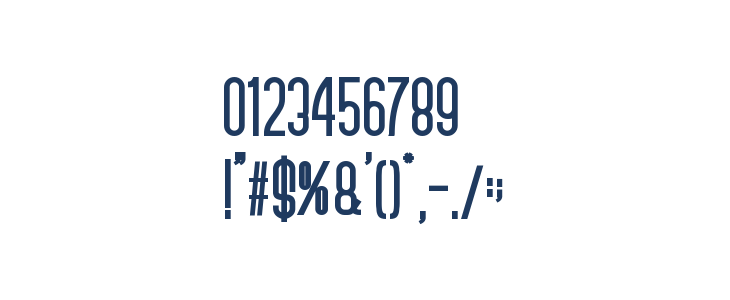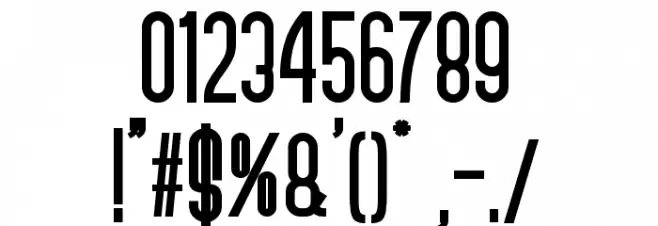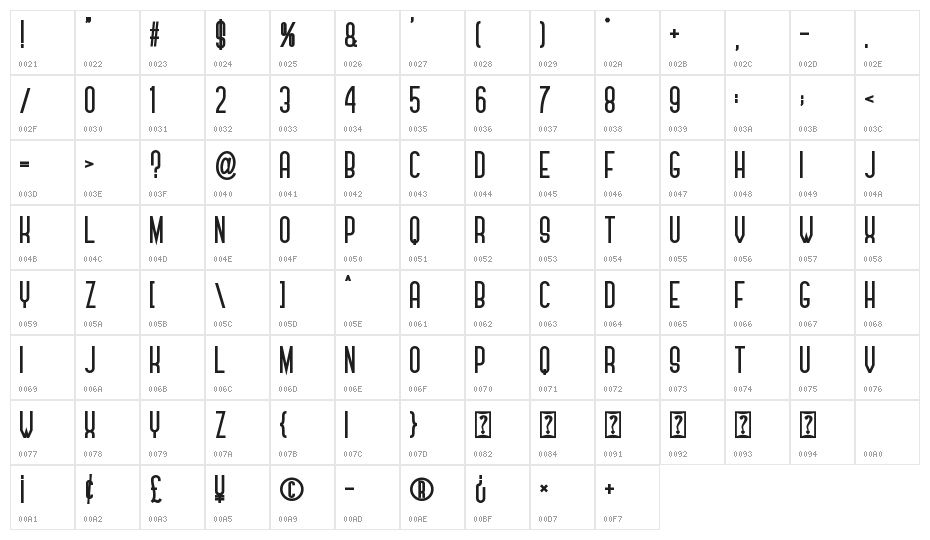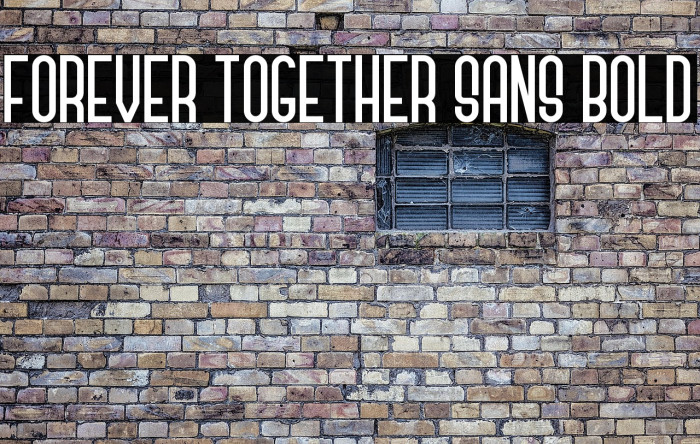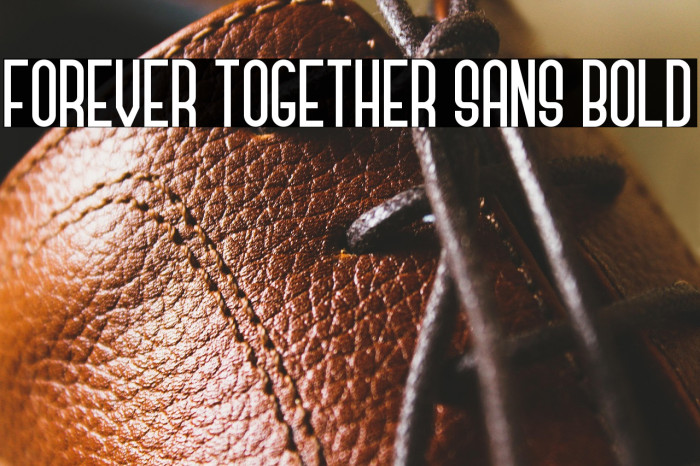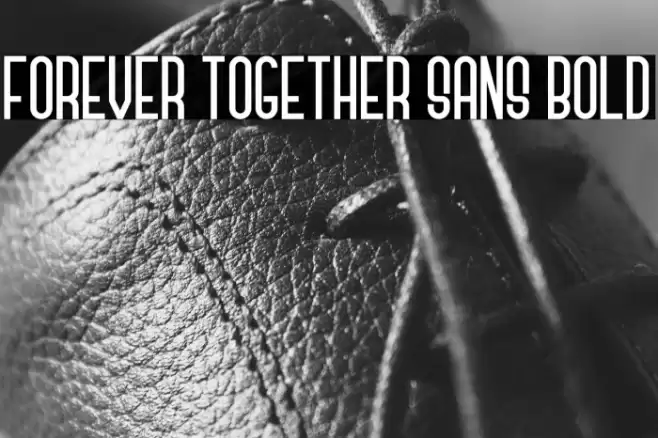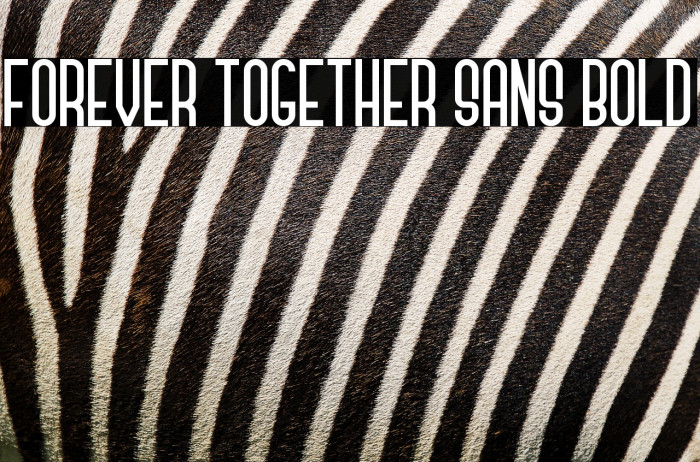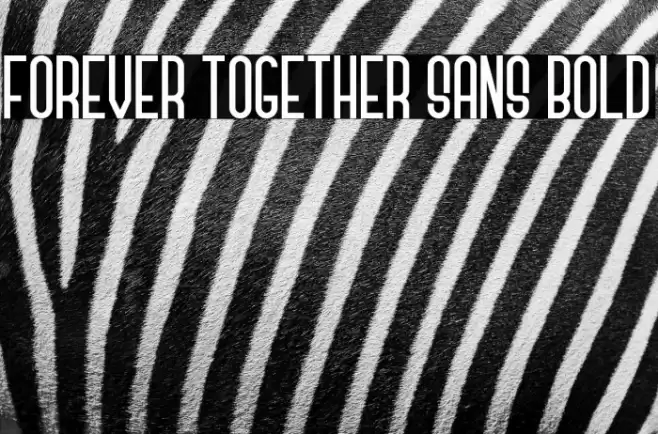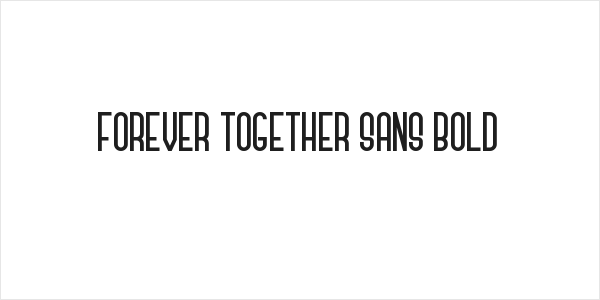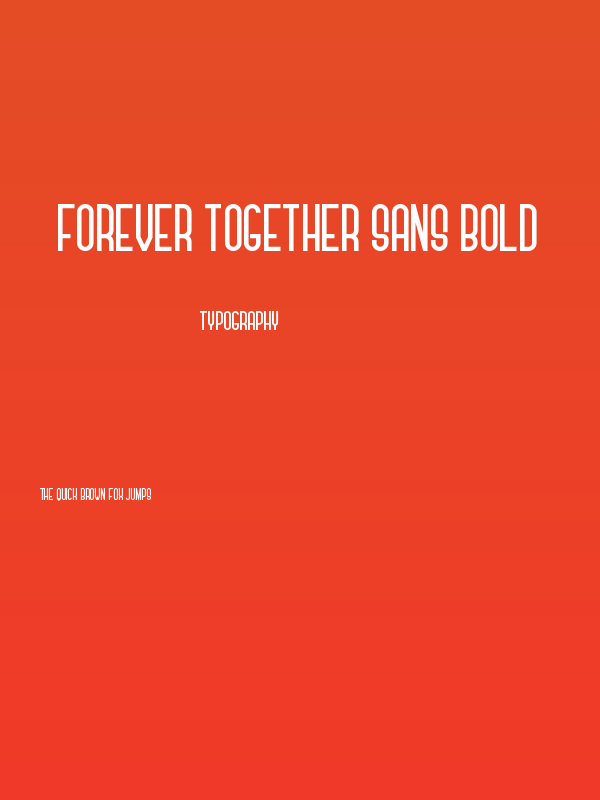
Forever Together Sans Bold Font
Forever Together Sans Bold Description
This font features a bold, geometric sans-serif style with a modern and clean aesthetic. The characters are tall and narrow, giving it a condensed appearance. The strokes are consistent in width, providing a uniform look across all letters and numbers. The uppercase and lowercase letters maintain a strong visual alignment, and the numerals are clear and legible. Special characters are designed to match the overall style, ensuring cohesion throughout the typeface. Its boldness and clarity make it suitable for impactful headlines and attention-grabbing designs.